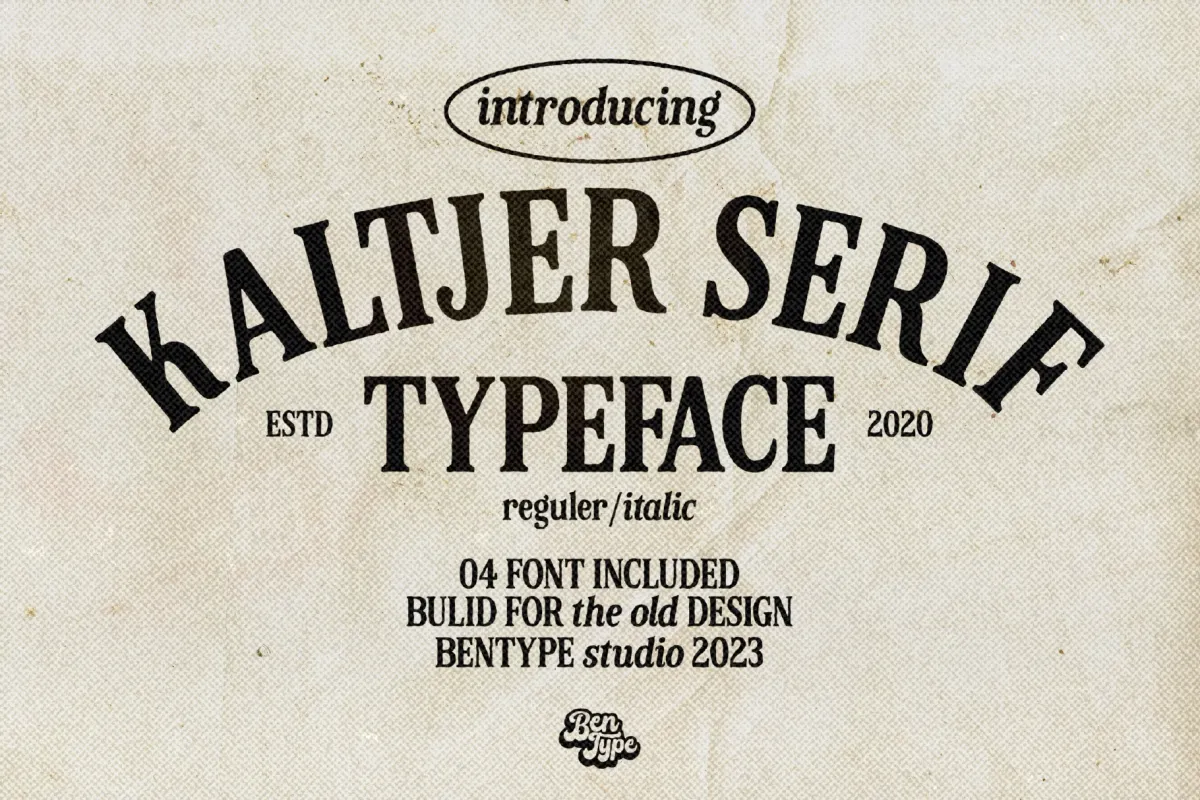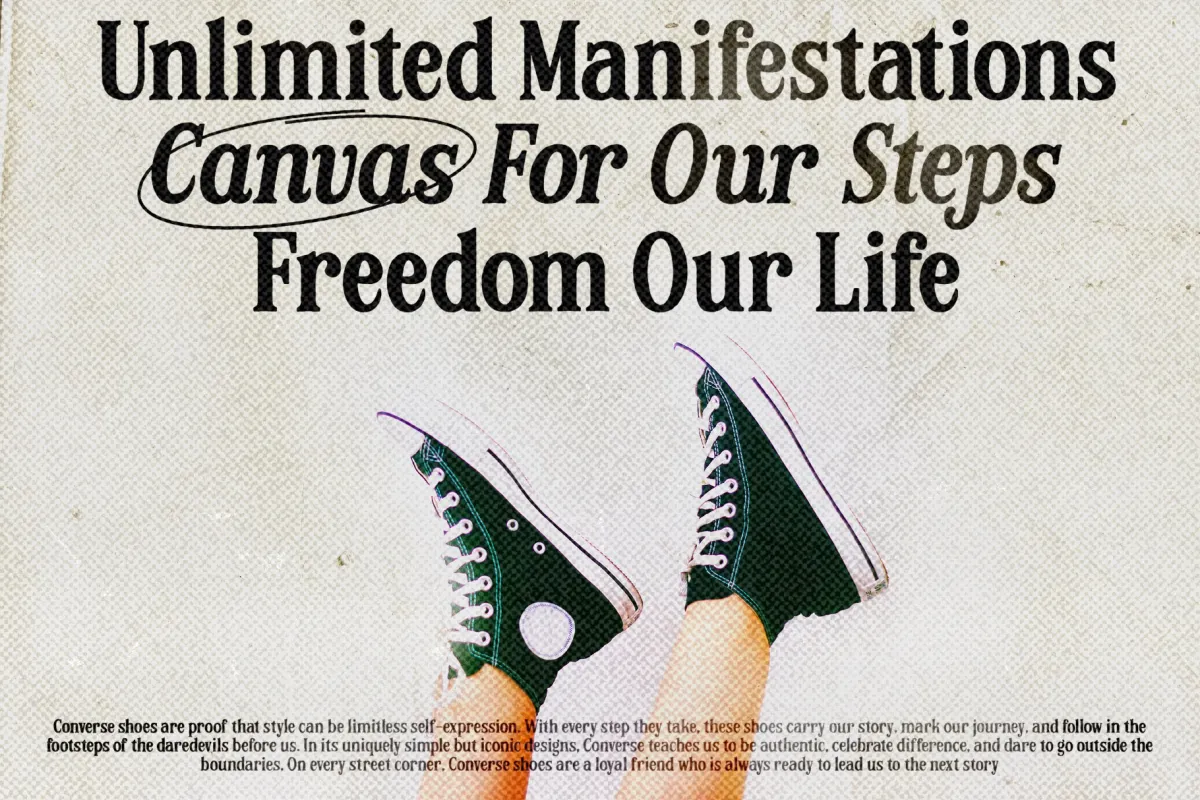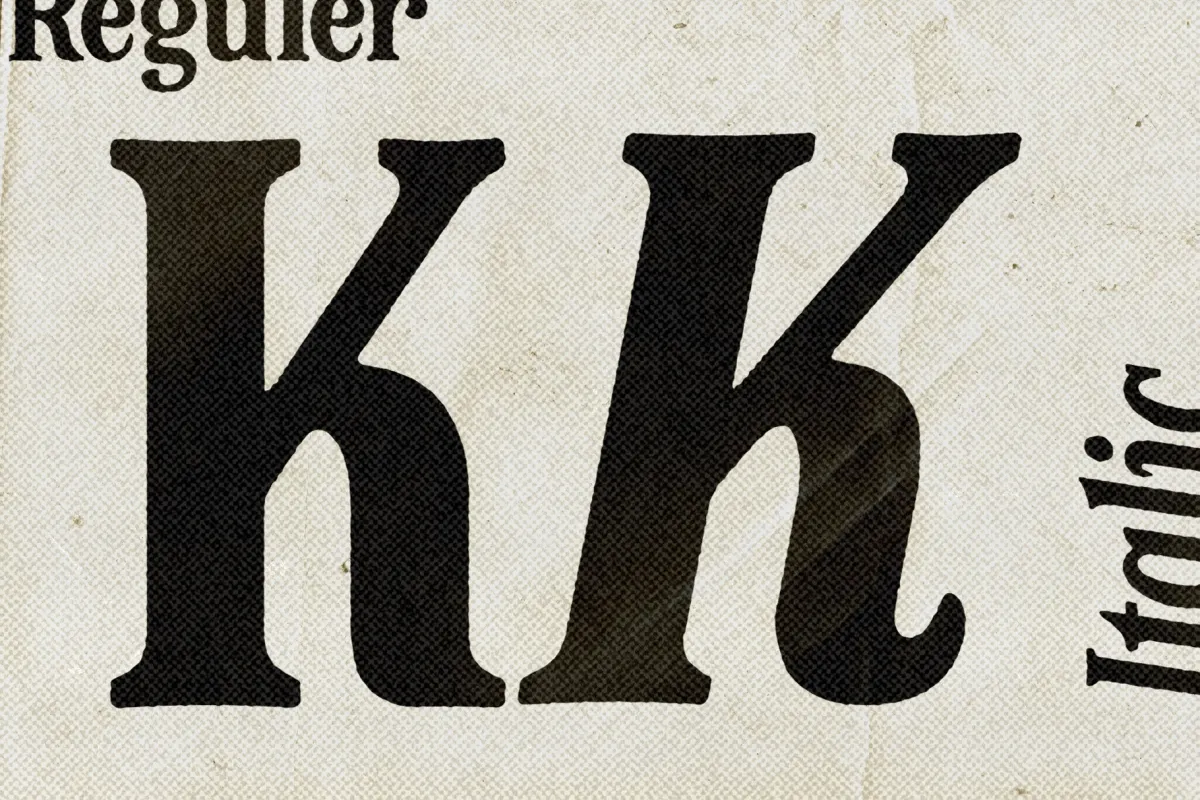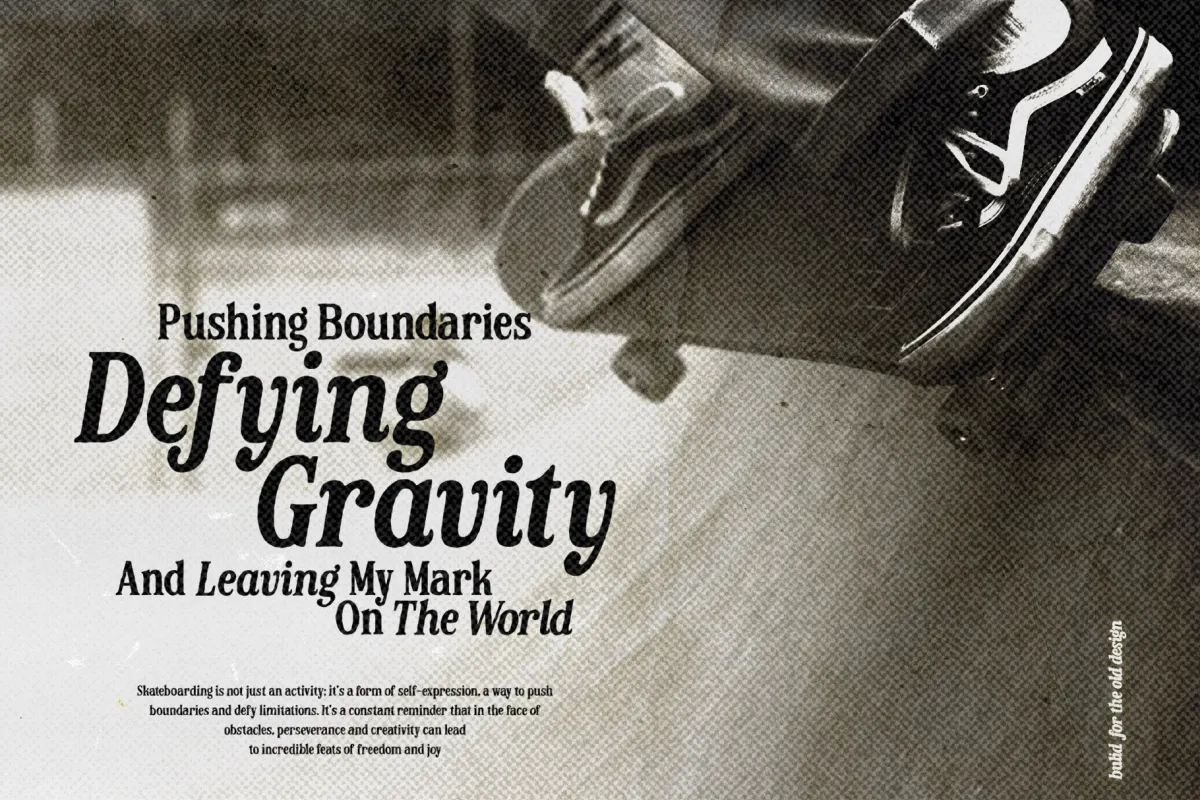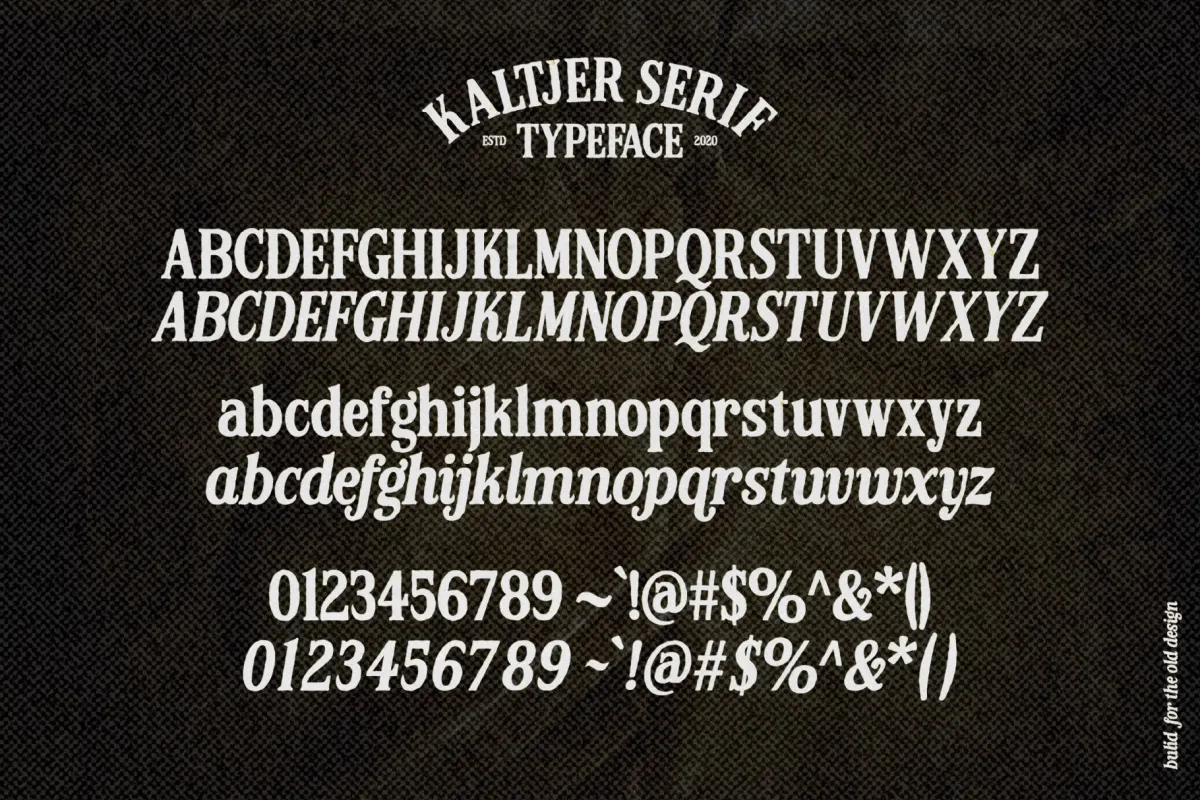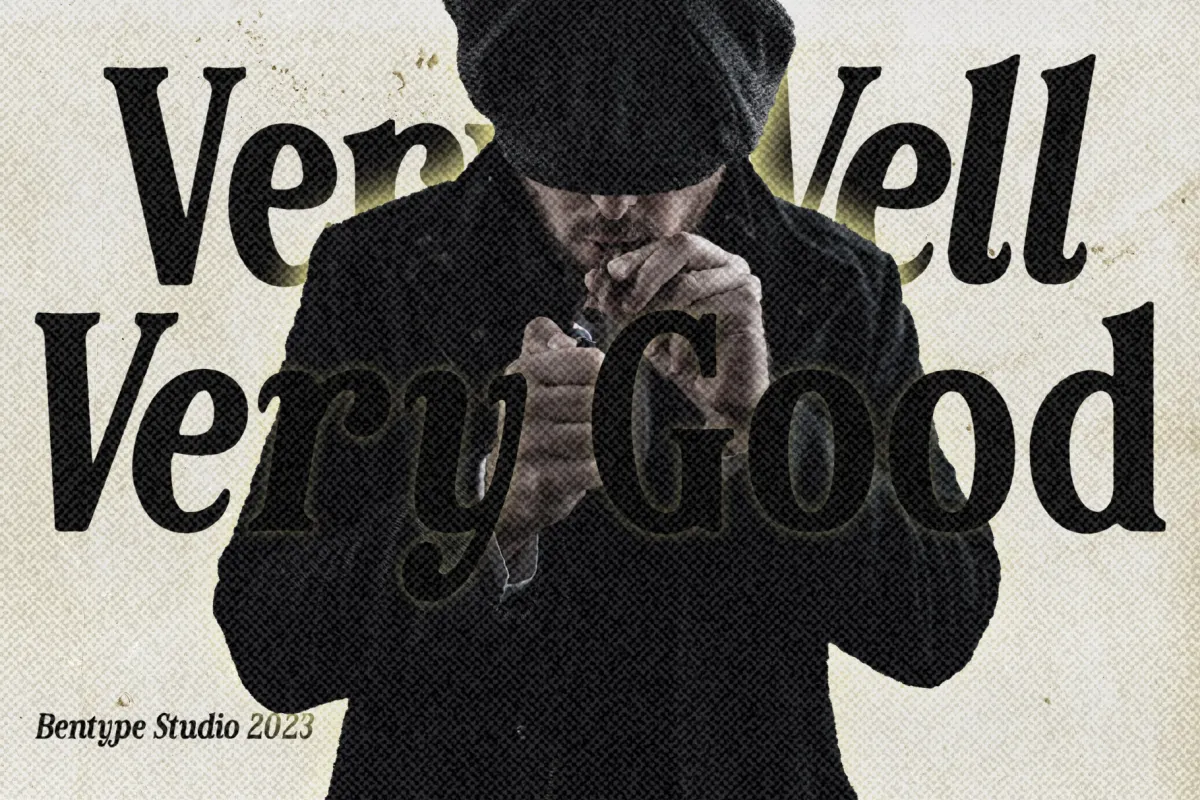
Kaltjer - Vintage Serif Font
Kaltjer
Kaltjeritalic
Kaltjer builds vintage badge lettering from blackletter-touched serif capitals and a curled, hand-cut italic companion. The capitals lean into an old sign-painting and carnival-poster register, with angular spurs on letters like K giving the set some Western edge.
Use it for vintage badge logos, apparel and streetwear branding, editorial headlines, posters, and any layout that wants an old sign-painted feel.
- 2 styles: Regular and Italic;
- Uppercase & lowercase;
- Numerals, punctuation & symbols.